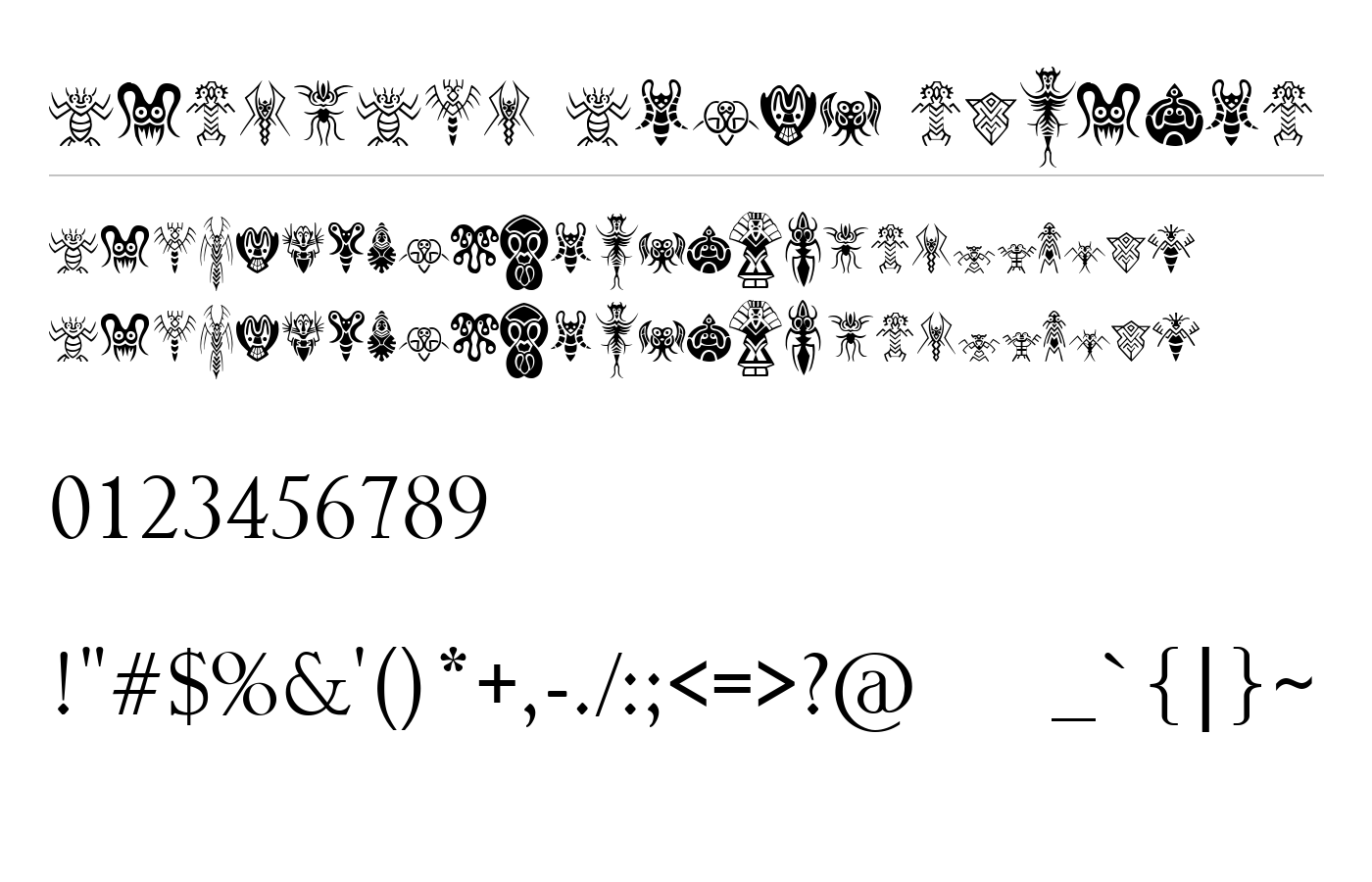
Abstract Alien Symbols Font is a highly decorative and symbolic typeface featuring intricate, alien-inspired glyphs that evoke a mysterious and otherworldly vibe. Its bold, complex icons create a striking visual impact, making it perfect for sci-fi, fantasy, or futuristic design projects that seek a unique and unconventional style. This font works best in logos, posters, and thematic branding where a strong, imaginative identity is desired.
Abstract Alien Symbols Font
About Abstract Alien Symbols Font